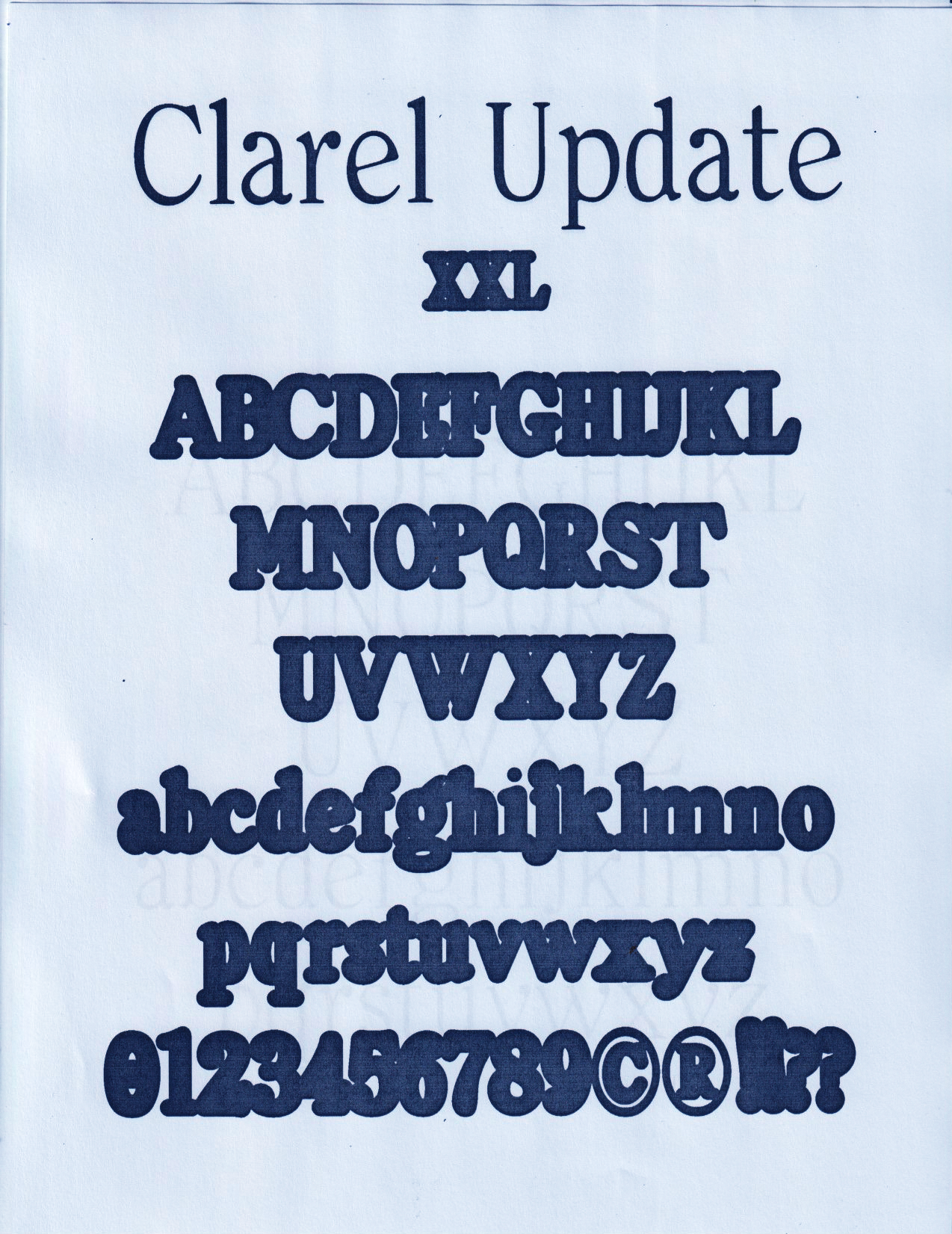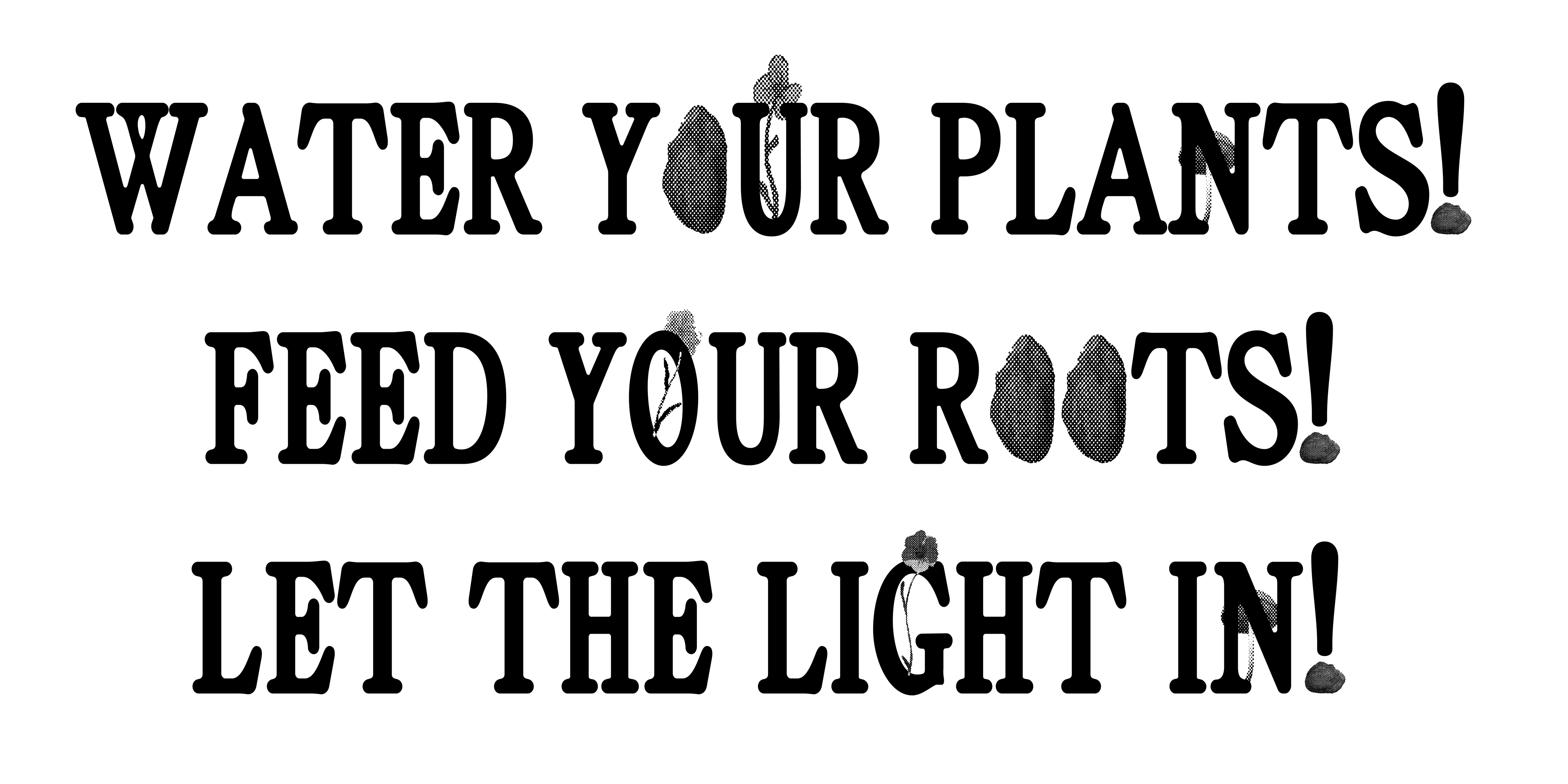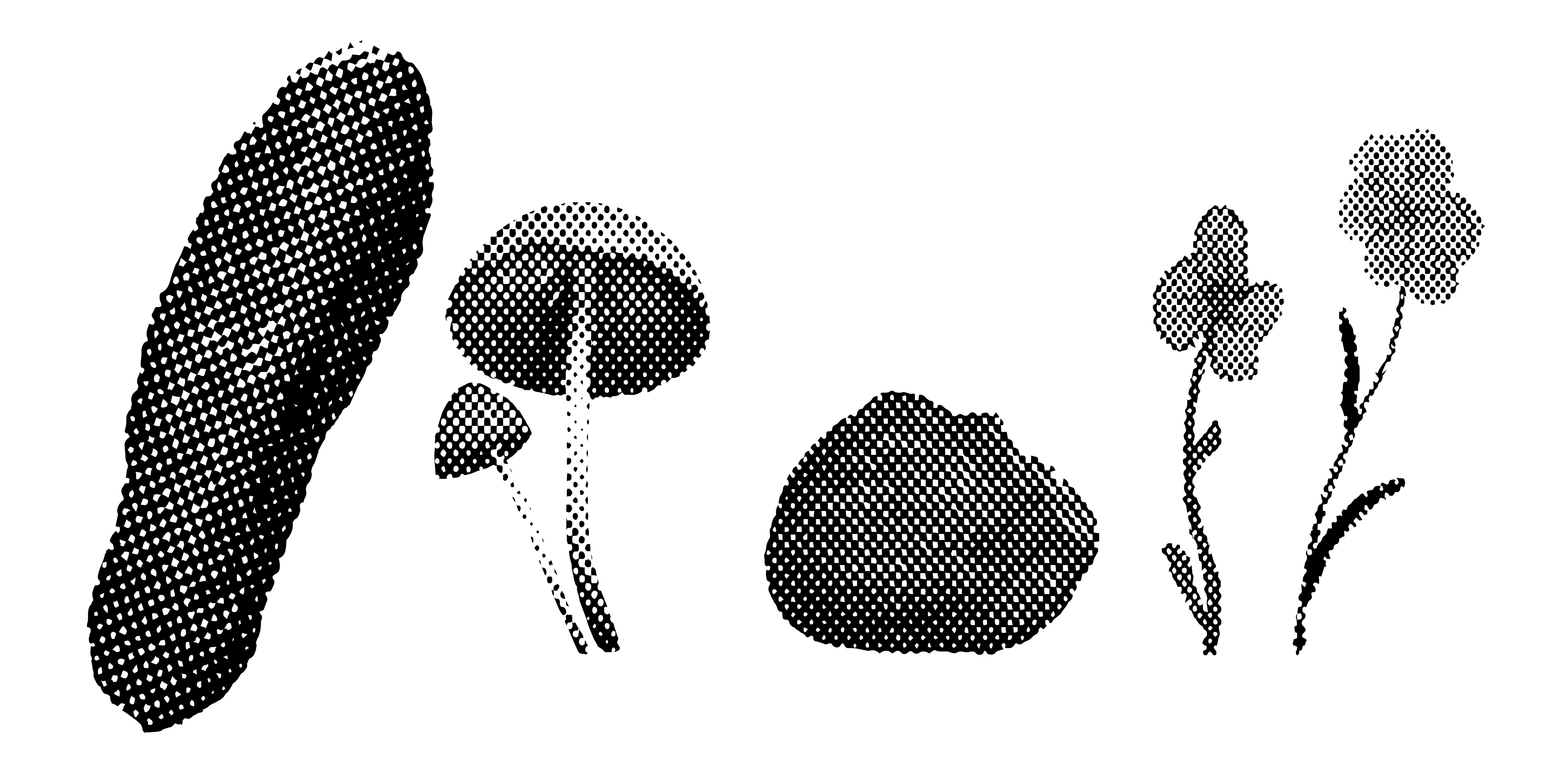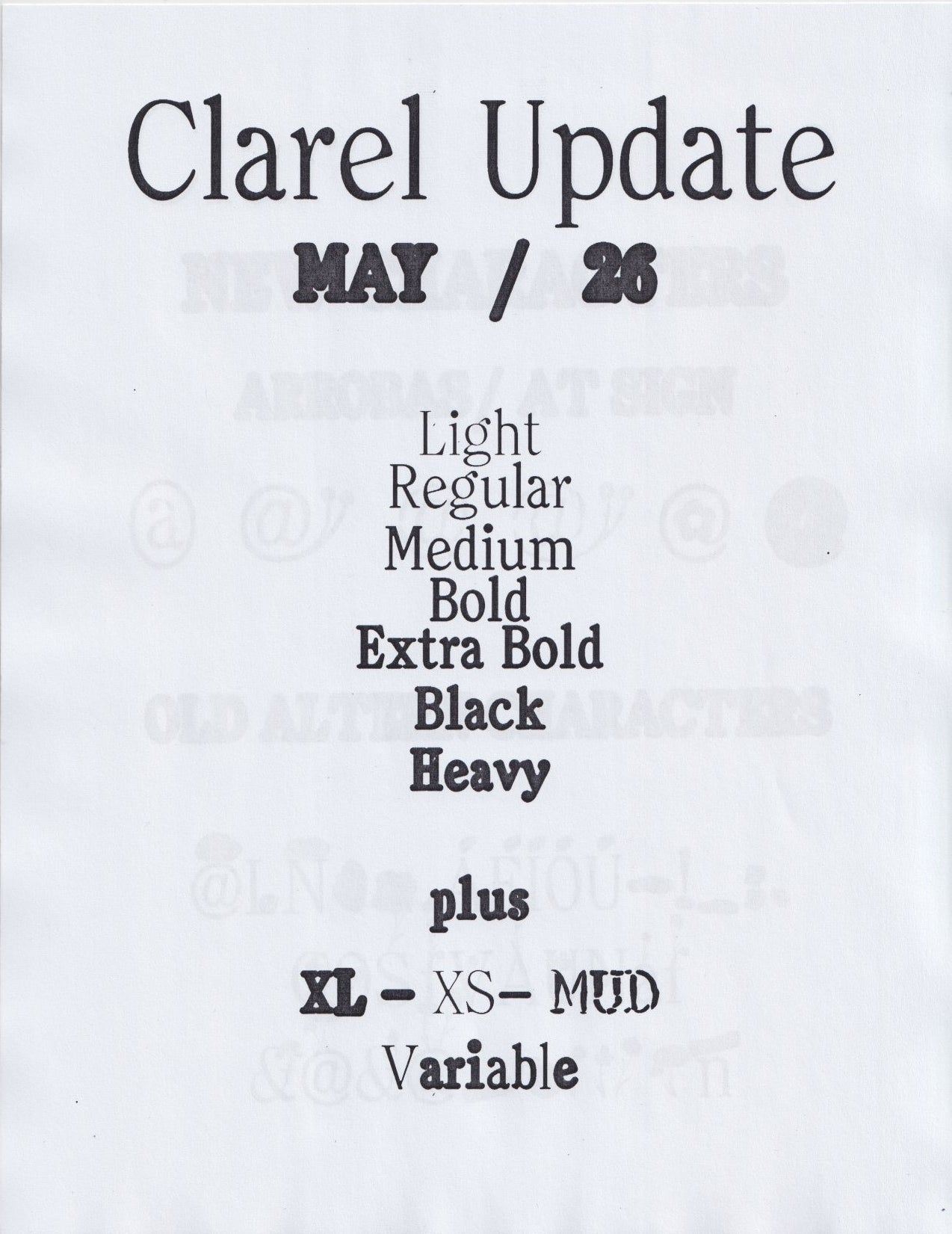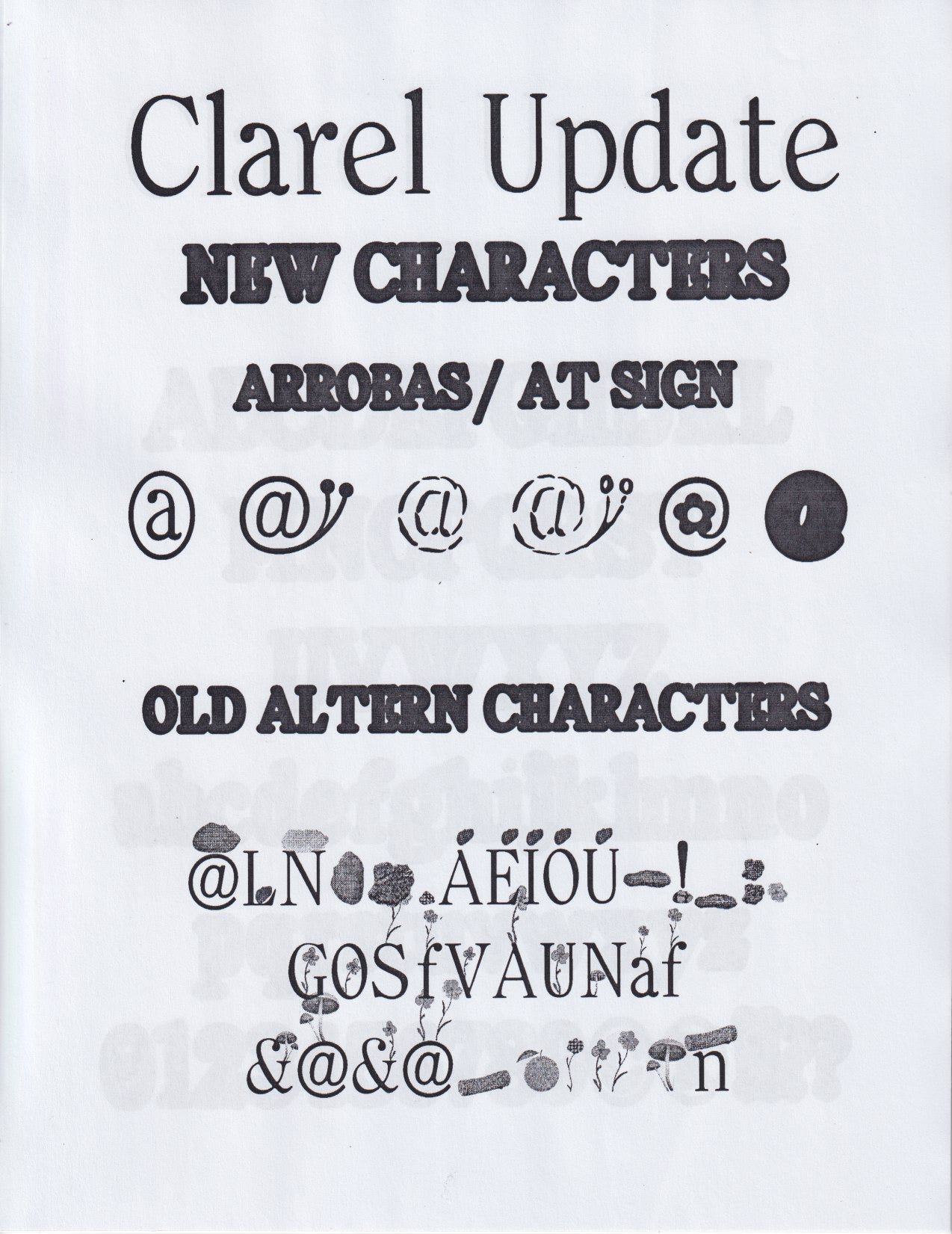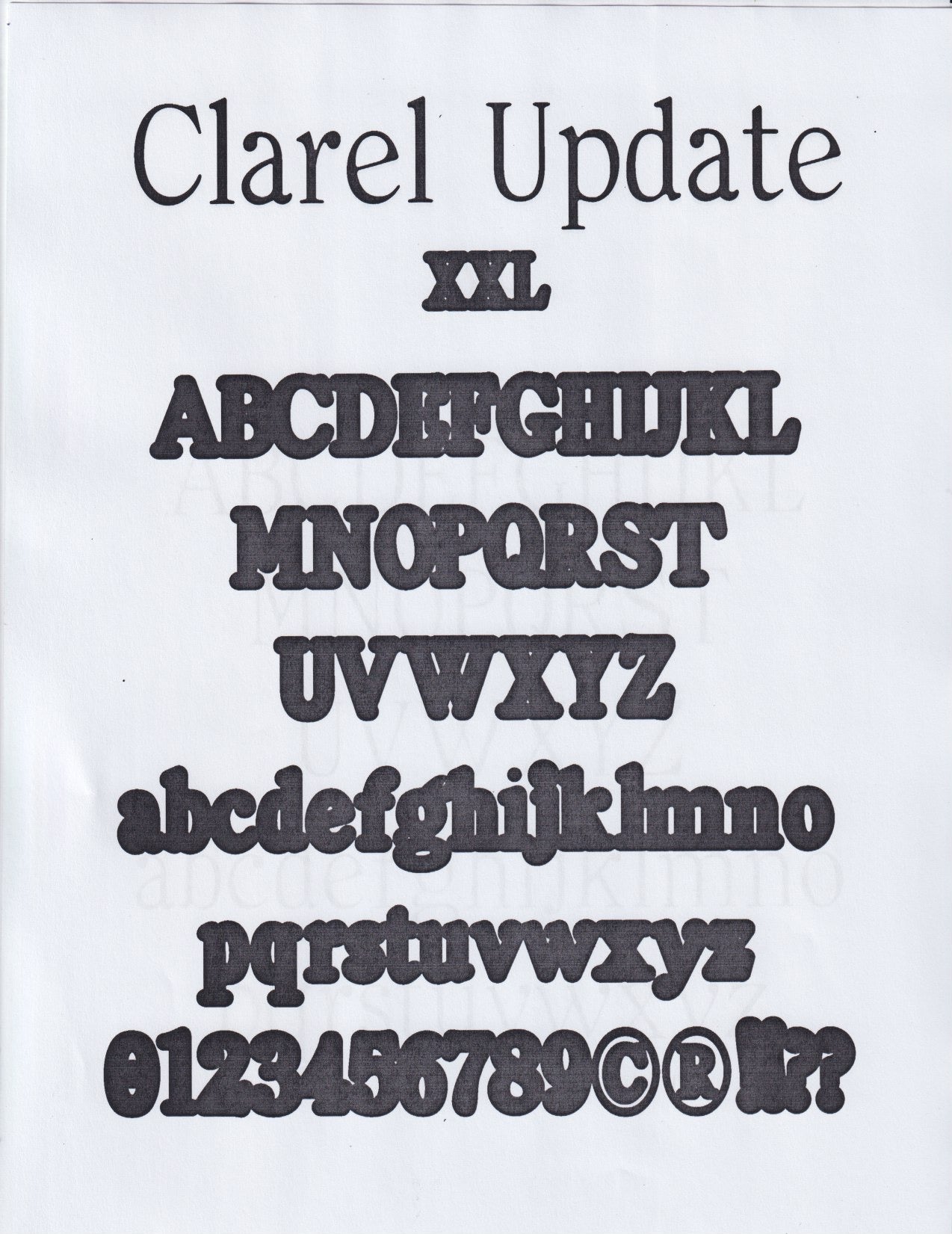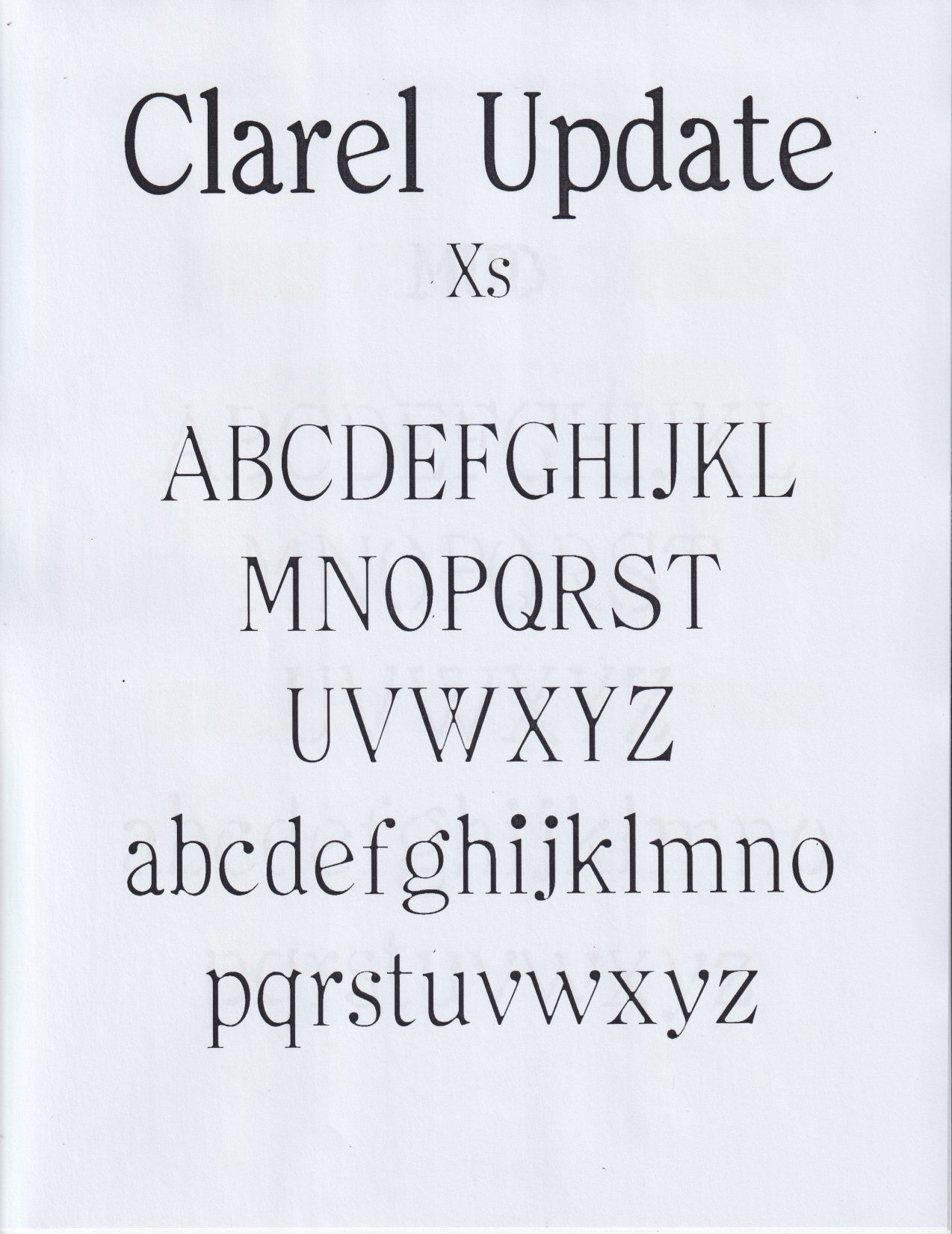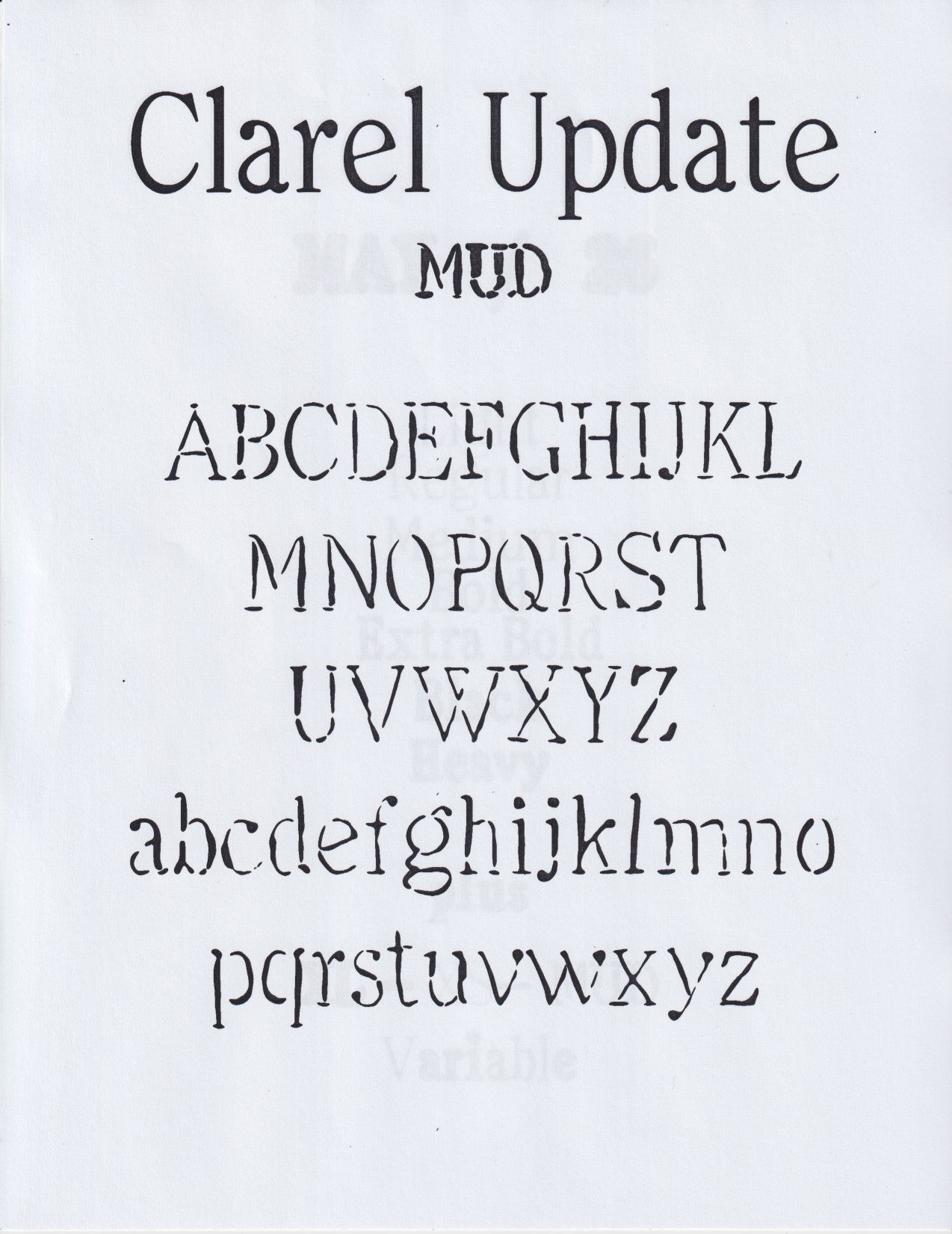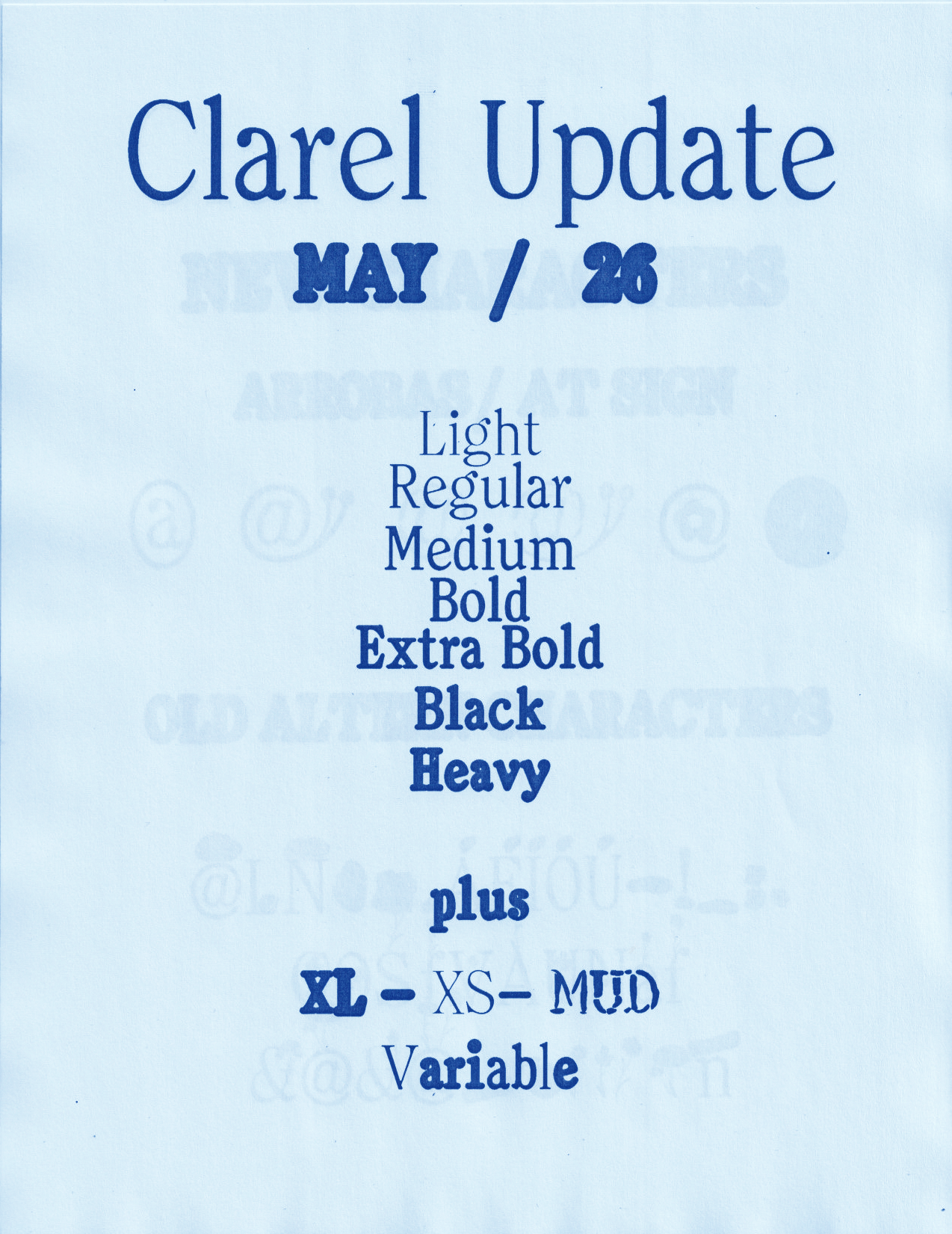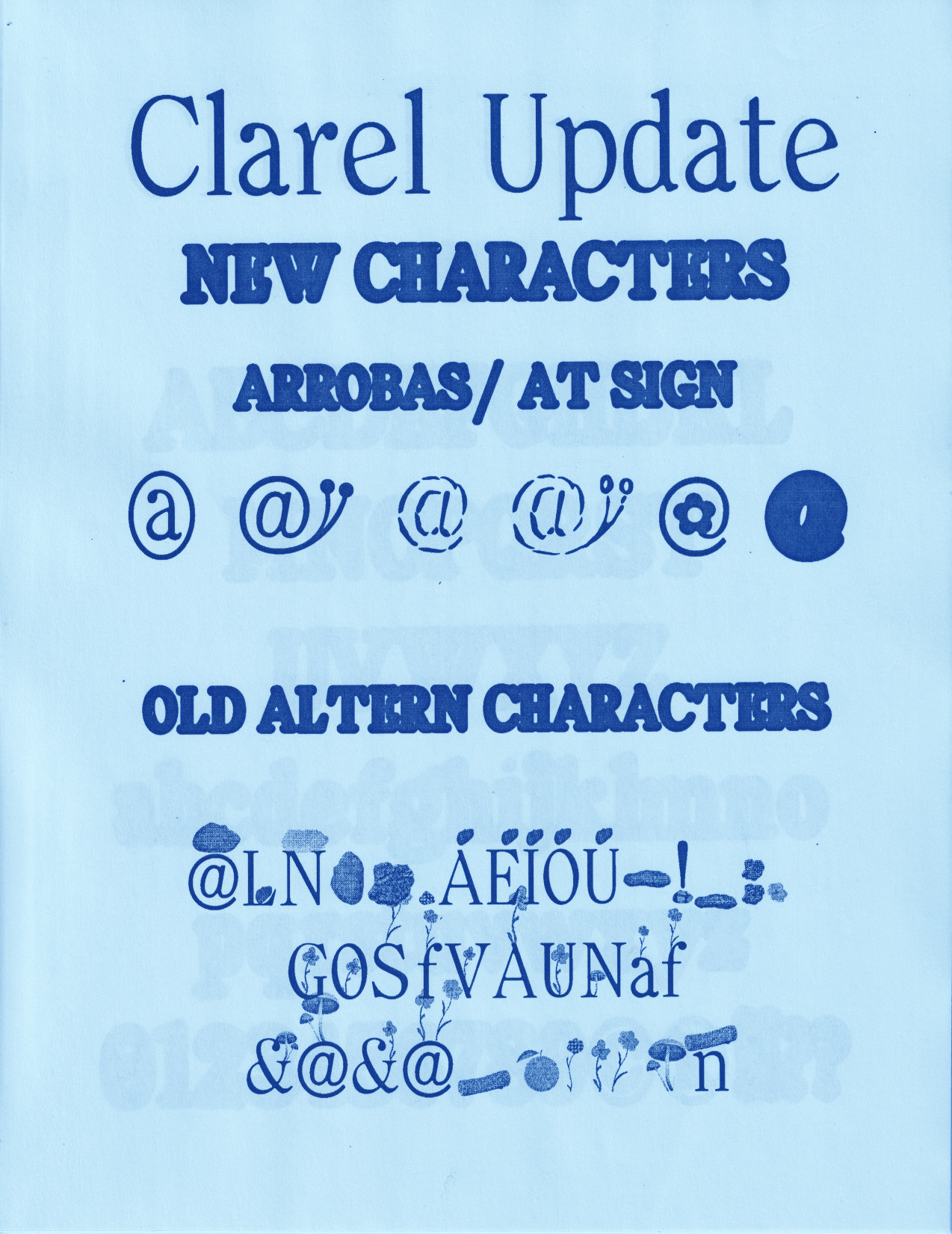
Clarel Serif
Clarel Serif is a contemporary serif typeface with curved terminals and large punctuation. Inspired by nature, flowers, trees, and rocks, its proportions and forms are designed to feel smooth and organic, with all nodes remaining curved to create a soft, blurry effect.
Clarel Serif sits between classic and modern serif styles. Its primary inspirations include ICT Clearface (designed by Morris Fuller Benton in collaboration with his father, Linn Boyd Benton, in 1907) and Clarendon (designed by Robert Besley and released in 1845 by Thorowgood & Co.).
The typeface features alternate letters and characters where natural elements, flowers, plants, rocks, and mushrooms interact with the typography, adding a unique organic touch.
— 7 STYLES
— UPERCASE & LOWERCASE
— LIGATURES
— ALTERNATES AND SUBSTITUTES